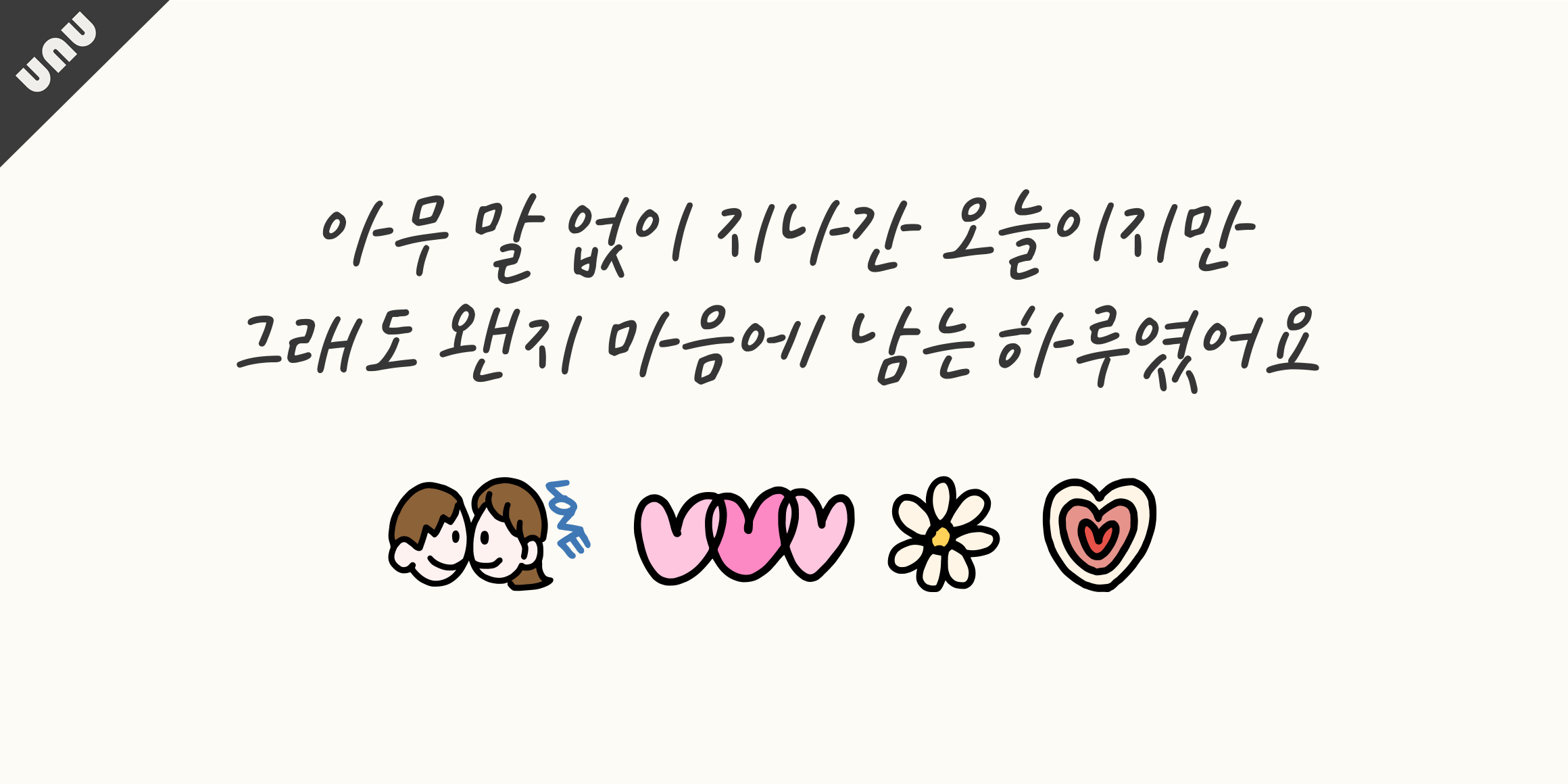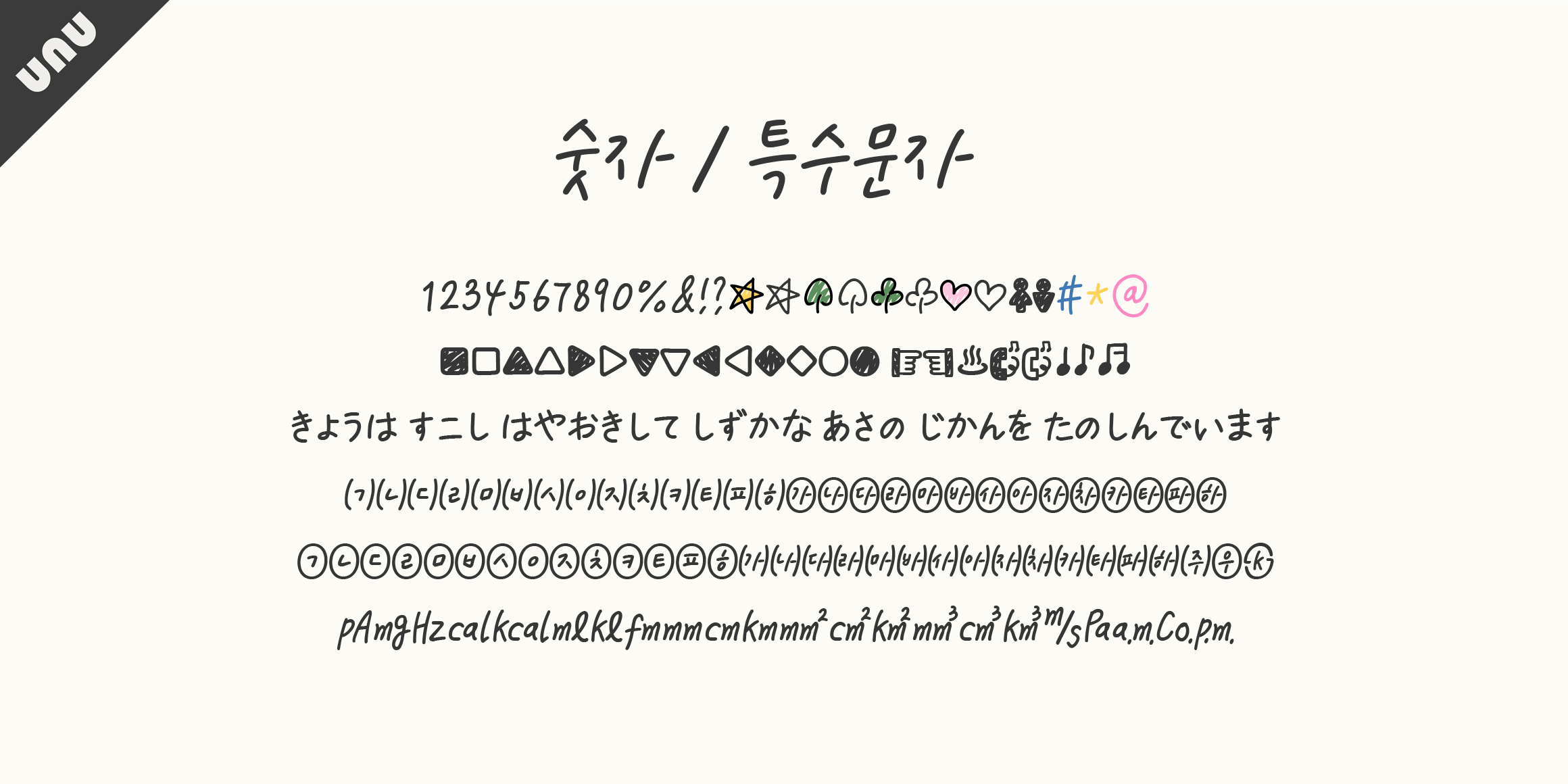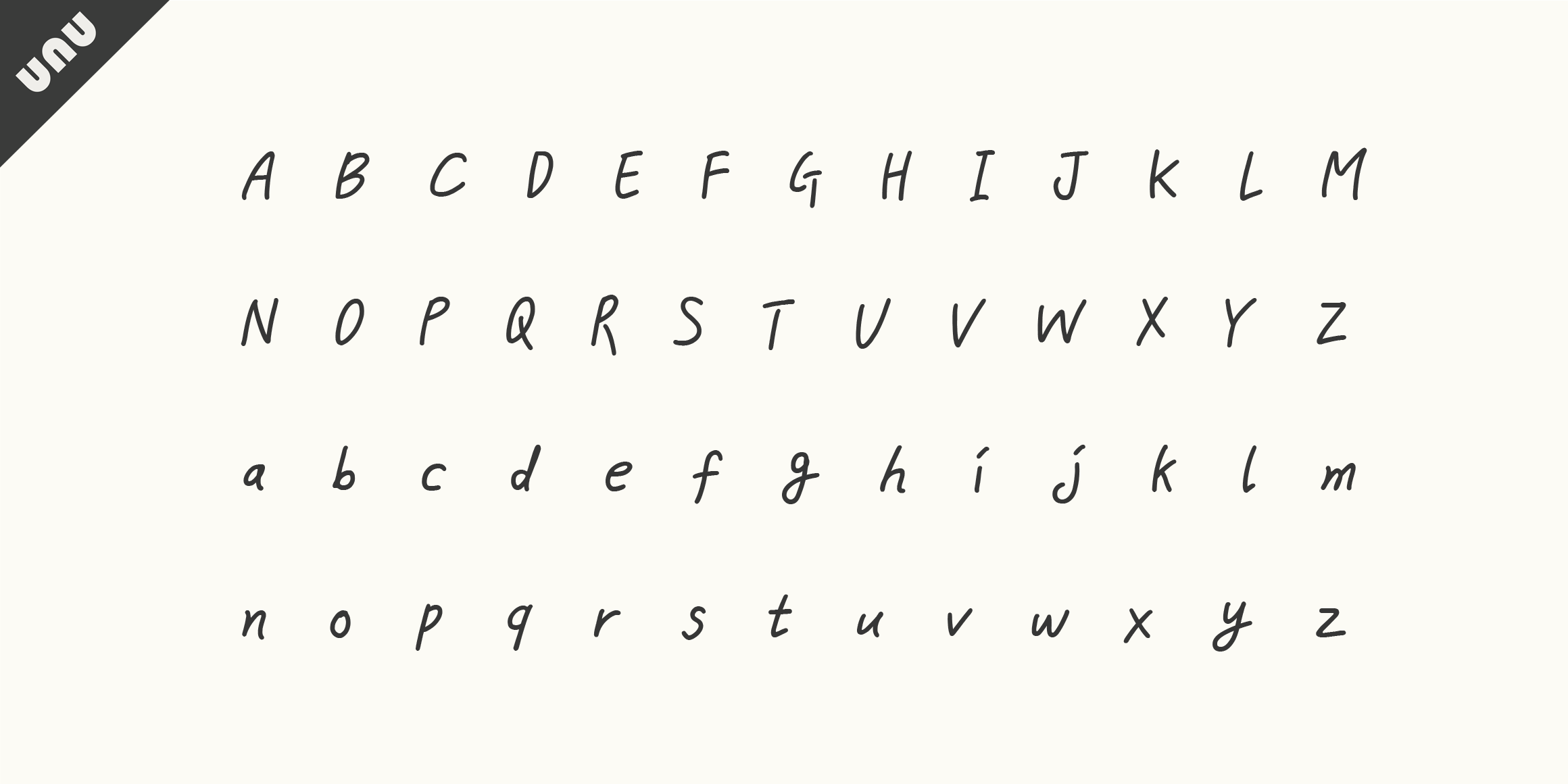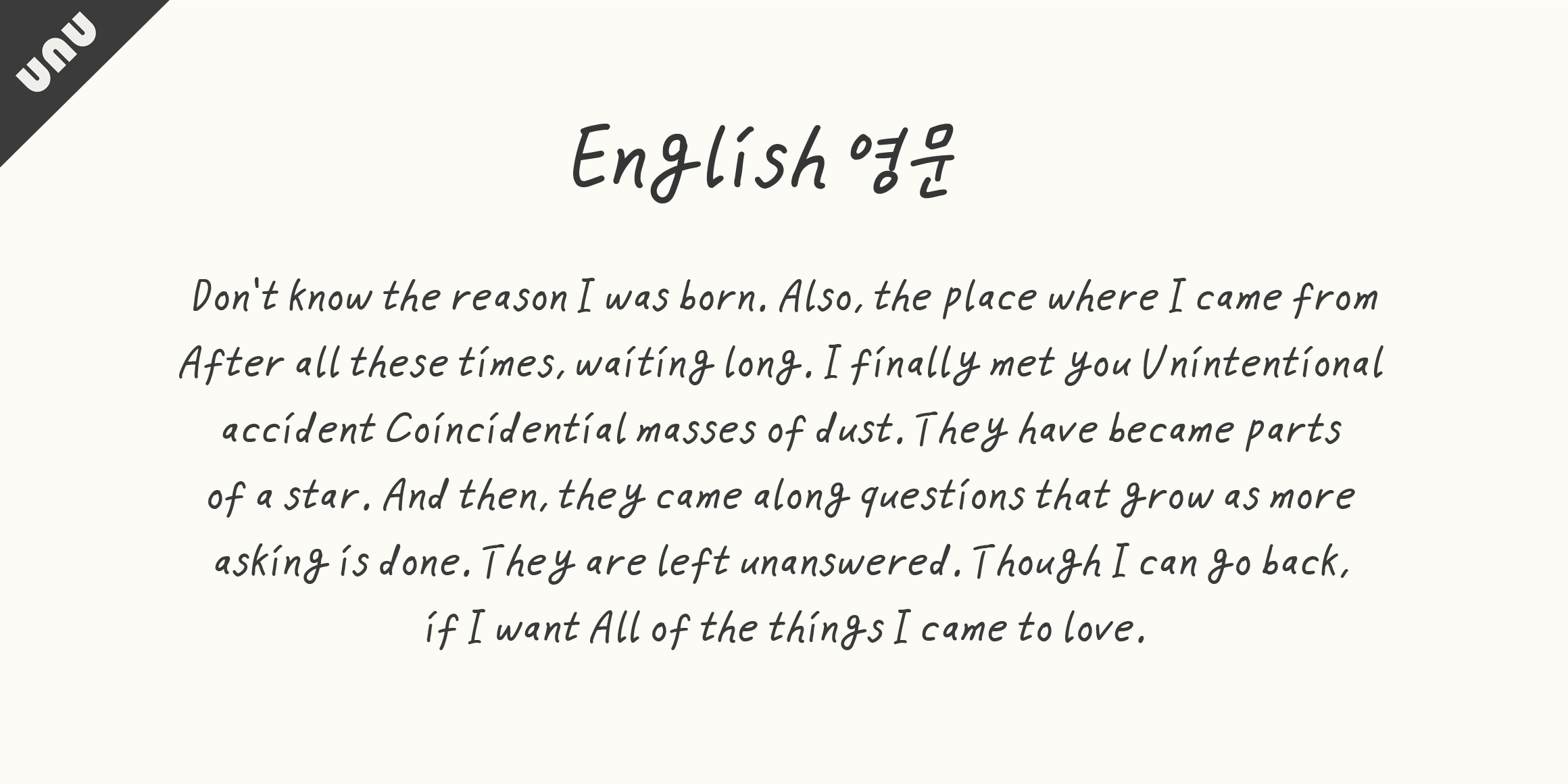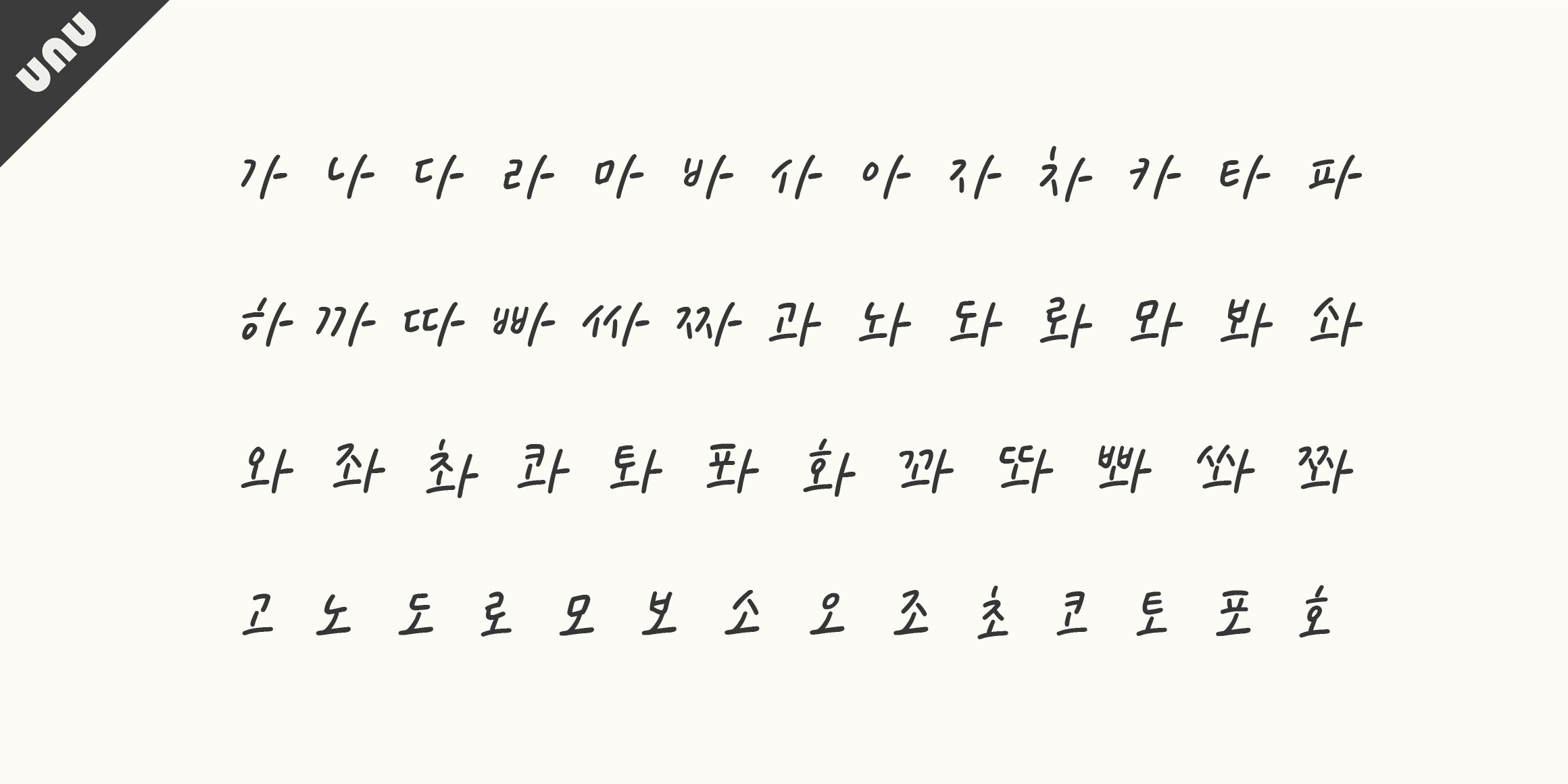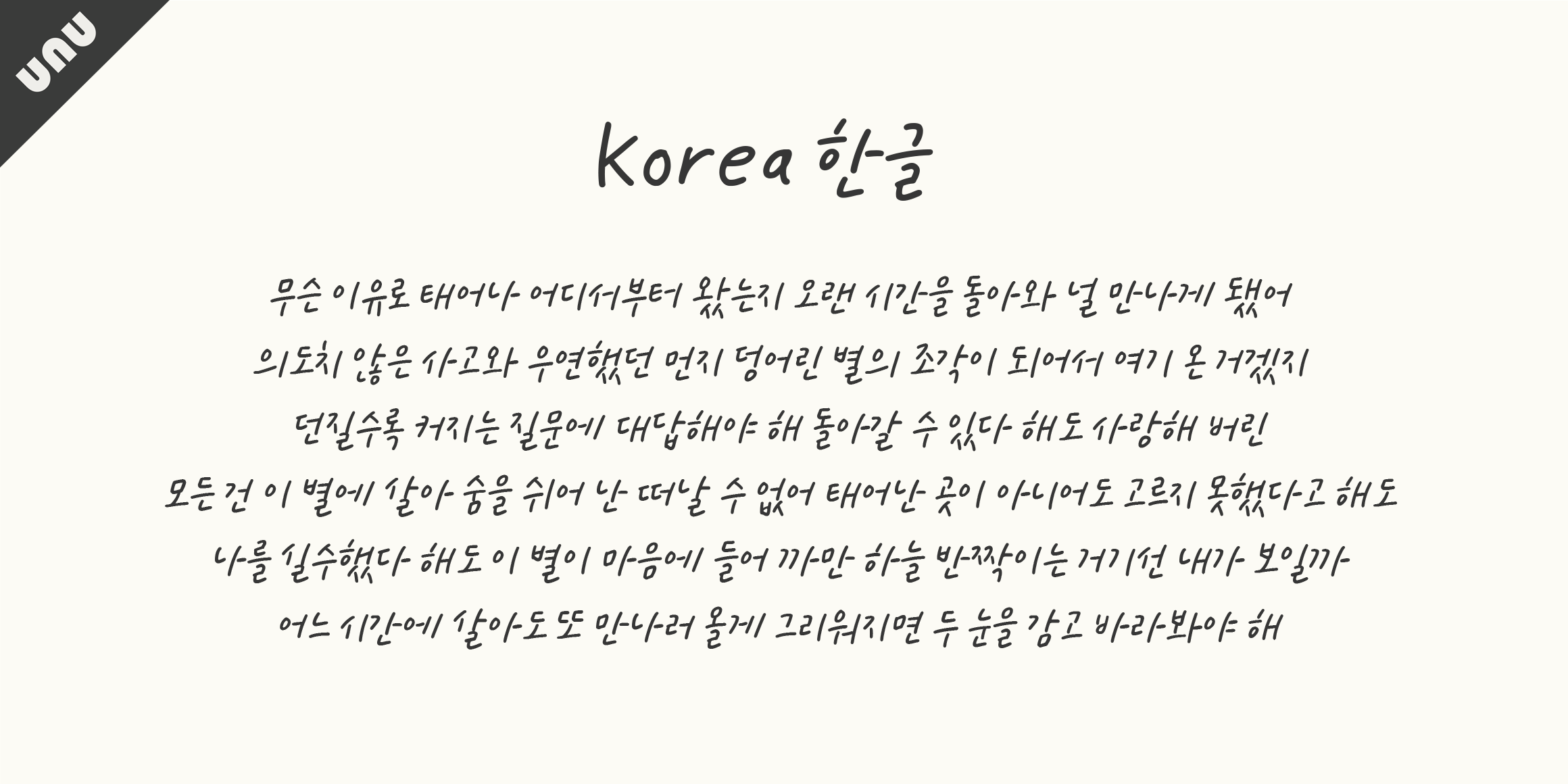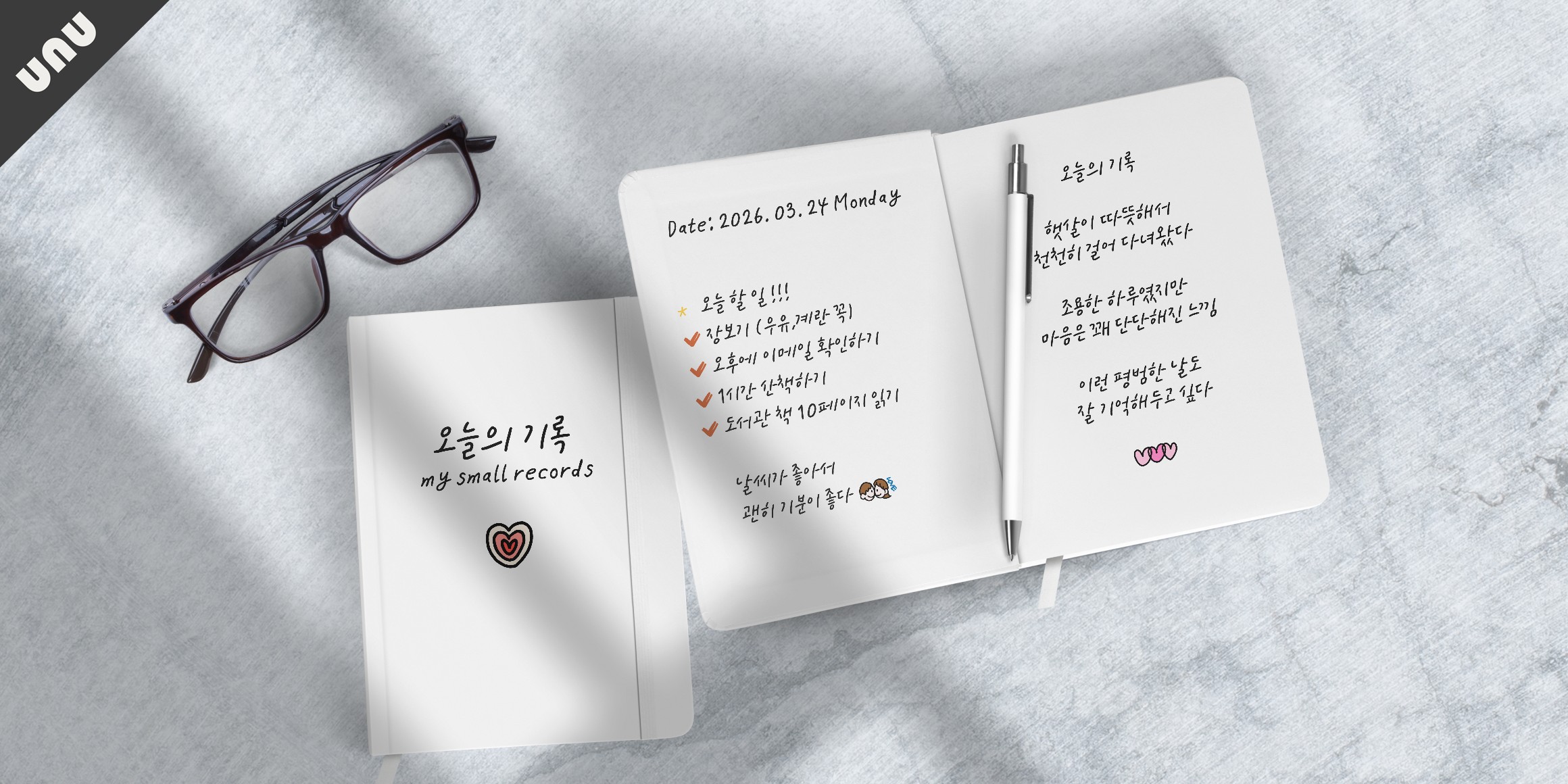
a typeface infused with deep emotion, featuring elongated and refreshingly sleek cursive strokes.
Do you know the happiness that overflows when you are in love? We have melted that very feeling into every letter, wishing for you to love those closest to you even more and find happiness in every single day. This font was created while imagining the heartfelt moment of confessing your love in a stylish, mature handwriting.
[lovealways] by unutype will add a gentle, warm resonance to your daily life. Express your precious, warm feelings today with UNUTYPE, where the unique warmth of handwriting truly comes alive.